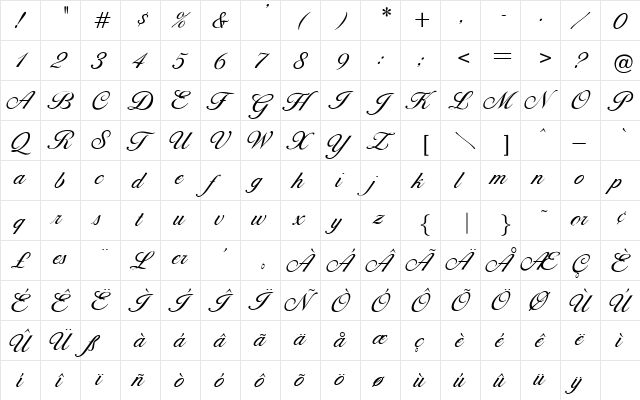
OPTIDiannaScript Regular
Design Context for OPTIDiannaScript Typeface
OPTIDiannaScript flows with the natural rhythm of handwritten lettering, making it ideal for designs that call for warmth and personal expression.